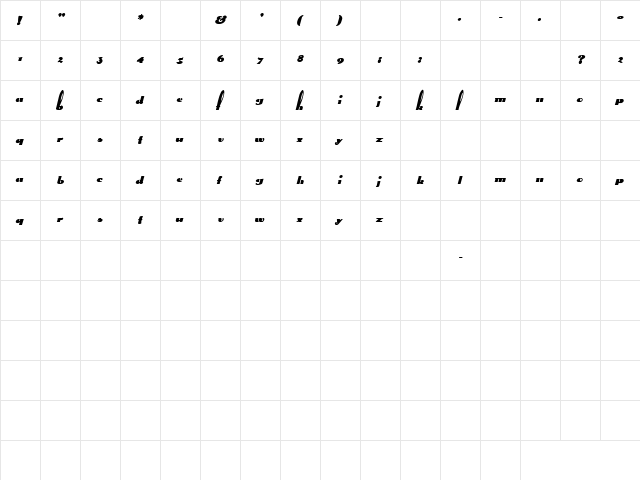
Gypsy 2 Italic
Design Context for Gypsy 2 Typeface
Gypsy 2 is a composed and adaptable typeface that performs quietly and consistently across a wide range of design contexts. Its italic angle brings a sense of urgency and motion to the letterforms.
Pro Tip: Try Gypsy 2 for annotation and caption copy alongside an upright companion — the contrast in angle creates a dynamic but ordered typographic system.